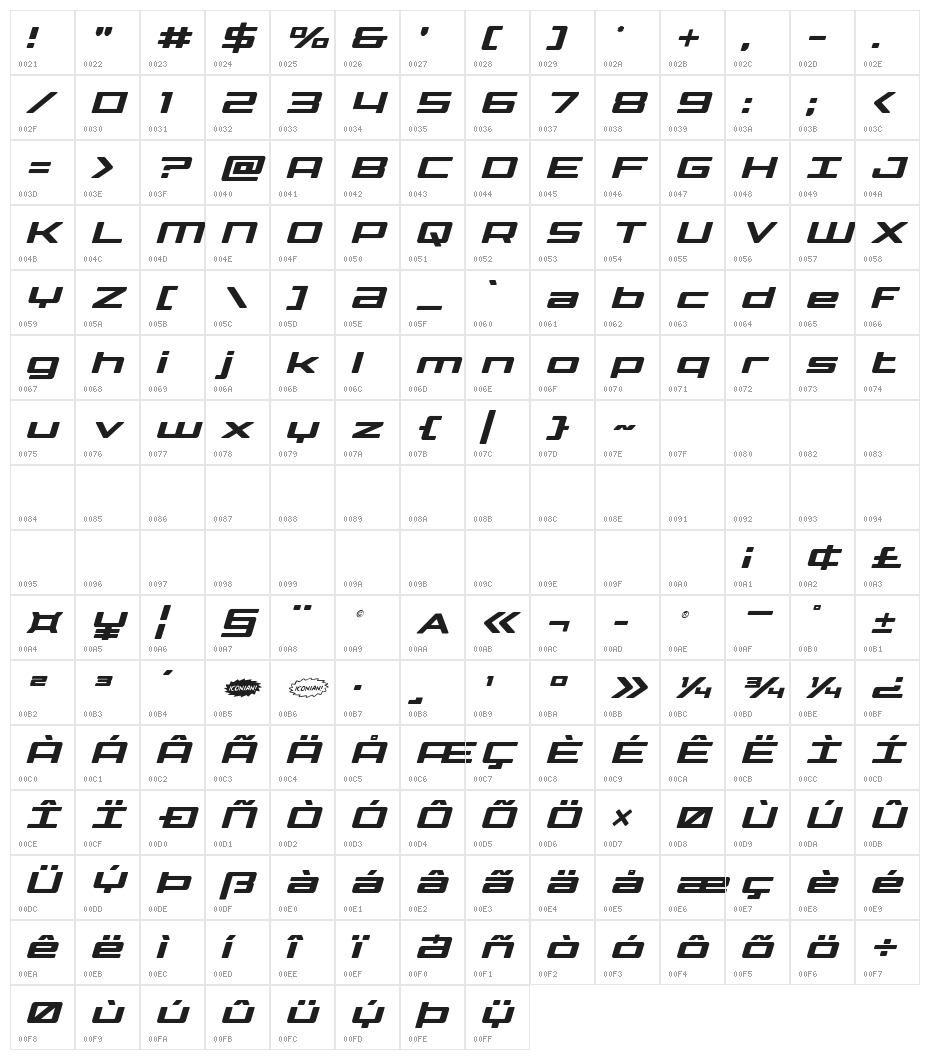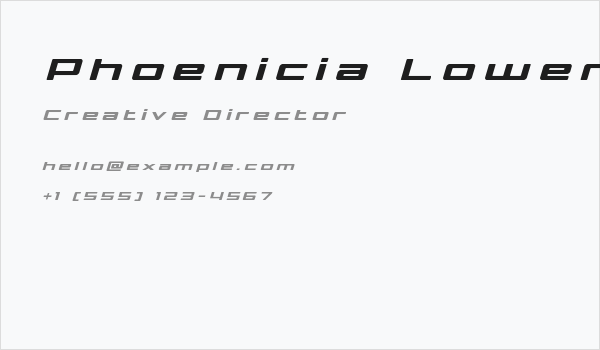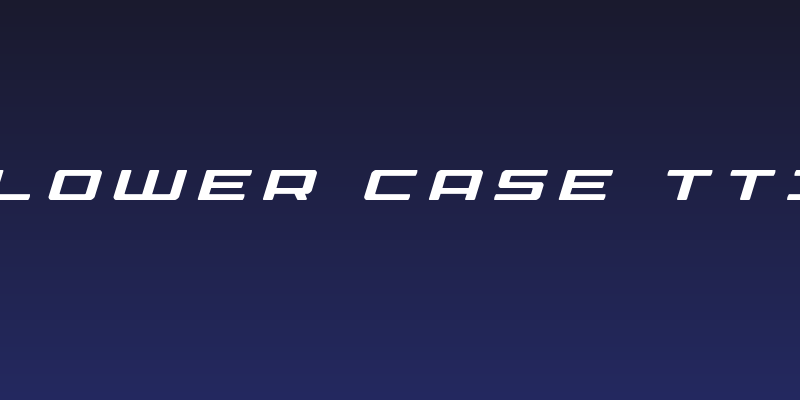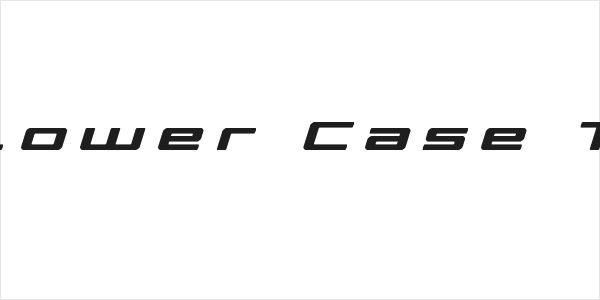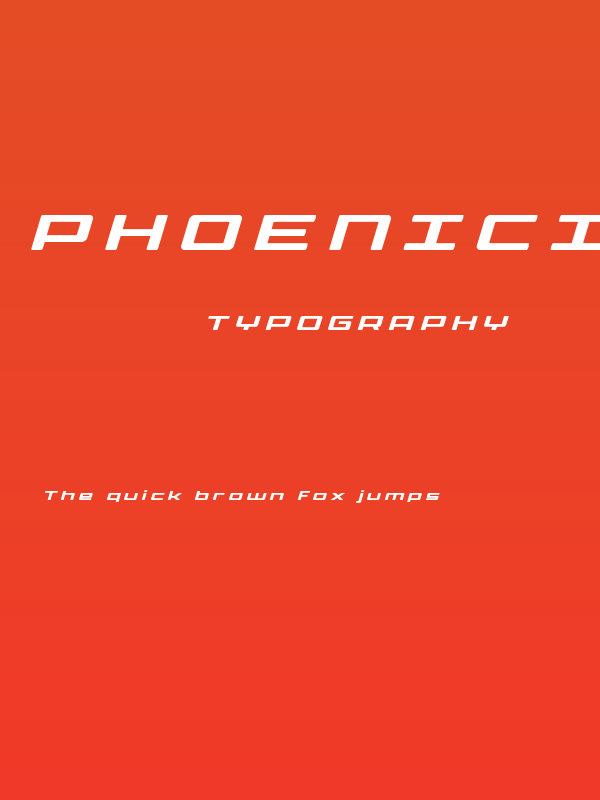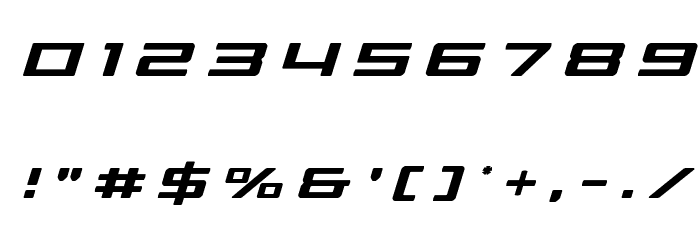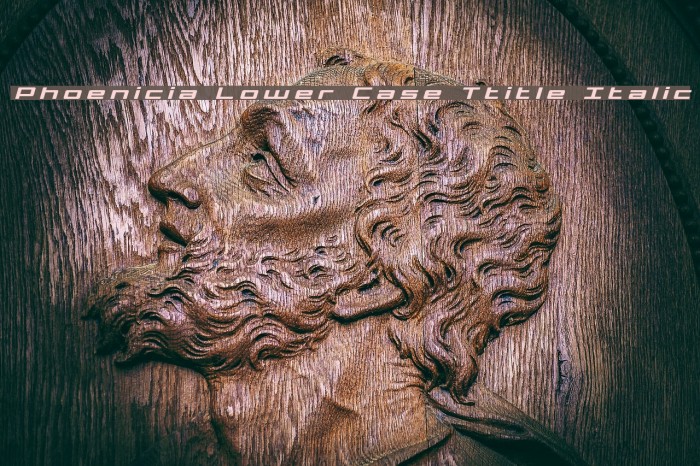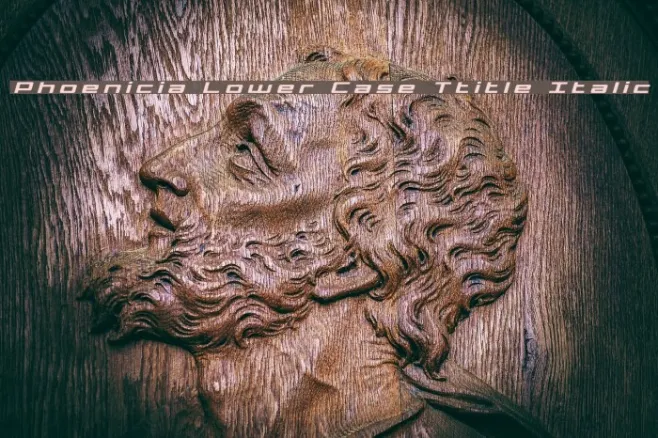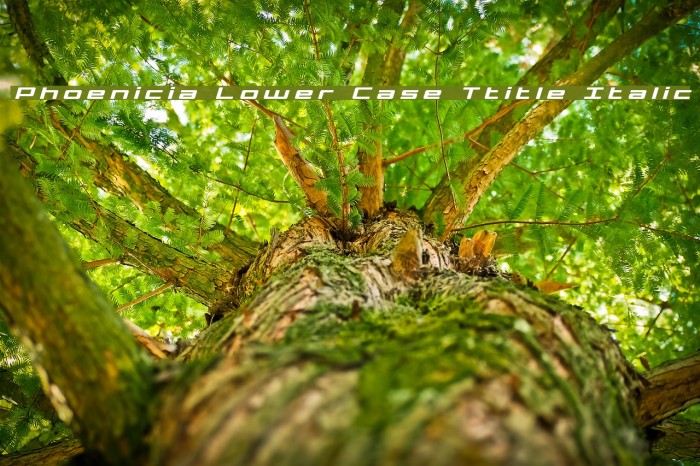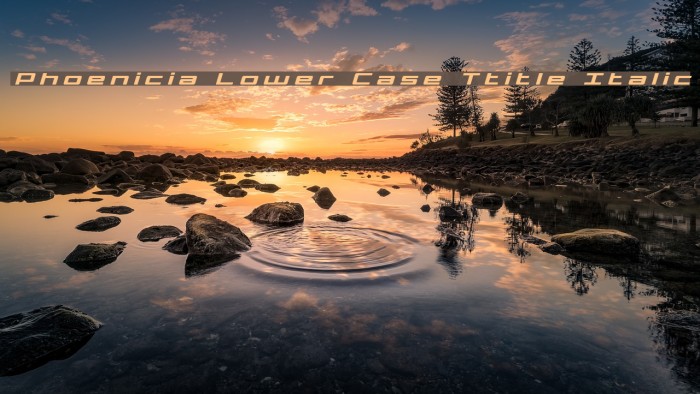
Phoenicia Lower Case Ttitle Italic Font
Phoenicia Lower Case Ttitle Italic Description
This font features a sleek, modern design with a slight italic slant, giving it a dynamic and forward-moving appearance. The characters are geometric with sharp angles and clean lines, creating a futuristic and technical feel. The uppercase and lowercase letters maintain a consistent style, with a uniform height that enhances readability. The numerals and special characters are designed to match the overall aesthetic, ensuring a cohesive look across all text elements. This font's unique style makes it suitable for projects that require a contemporary and innovative touch.
| Use Case | Headlines, Logos, Branding |
| Proposed Projects | Ideal for technology branding, modern advertising, and innovative product packaging. |